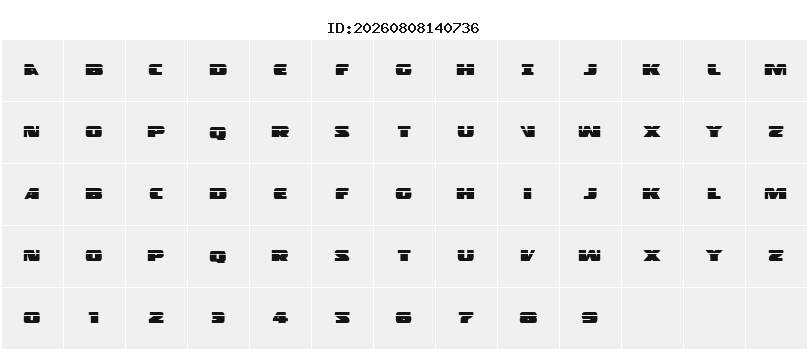
• Font Name: Police Cruiser Laser
About Police Cruiser Laser.ttf
Police Cruiser Laser.ttf is a modern, elegant sans-serif font designed for ultimate readability and visual harmony. Perfect for branding, headlines, web design, and print materials.